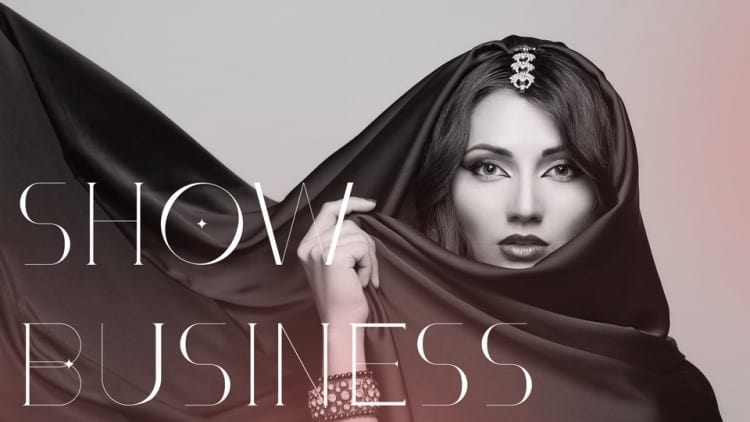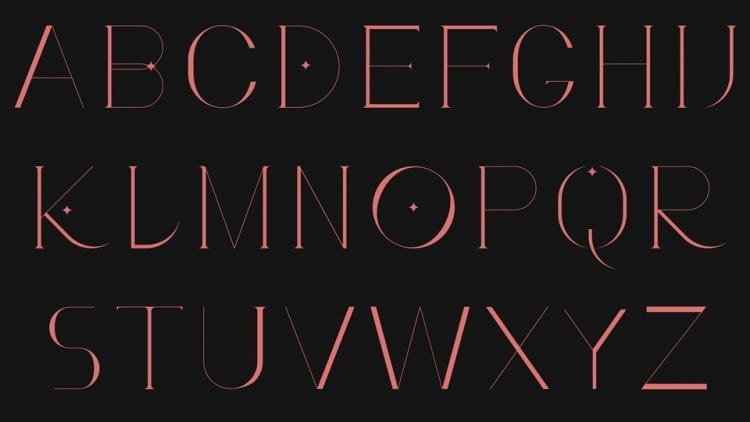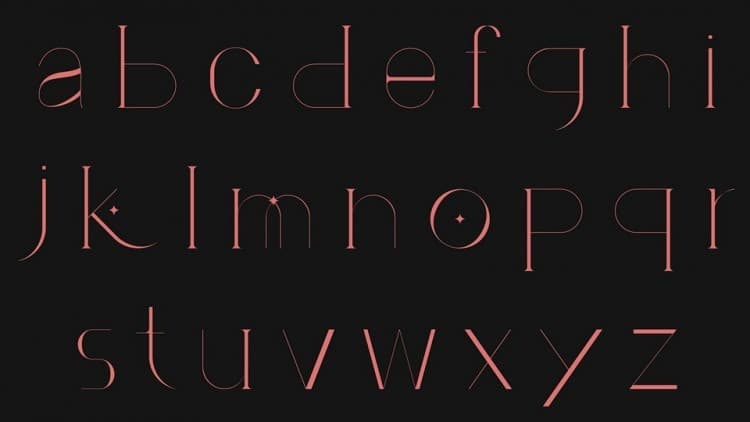
Branic Display Font, designed by Omar Alguayyaid is an elegant and modern sans serif with a thoughtful details that will make your presentation, logo or your wedding invitations more stunning and lovely! You can use this font for several purposes such as a wedding invitations or even your own branding!